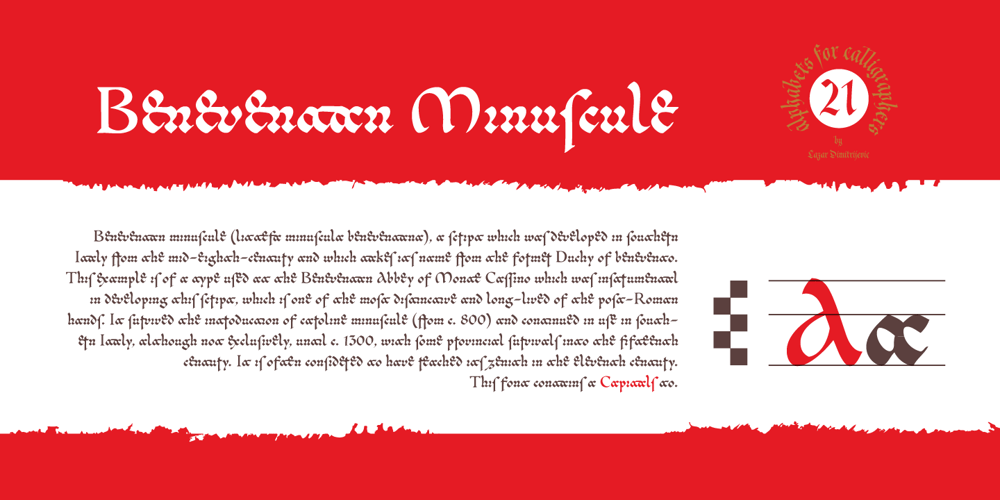
Cal Beneventan Minuscule Font Family was designed by Lazar Dimitrijević and published by Posterizer KG. Cal Beneventan Minuscule contains 1 styles and family package options. Calligrapher Beneventan Minuscule Font, is one of the calligraphic group of fonts called “21 alphabets for Calligraphers“. All graphemes are taken from calligraphic pages written on traditional Beneventan Minuscule calligraphic stile. This font is ideal for calligraphic sketches or for imitation of ancient manuscripts. Font contains all the Latin glyphs and plenty of ligatures.